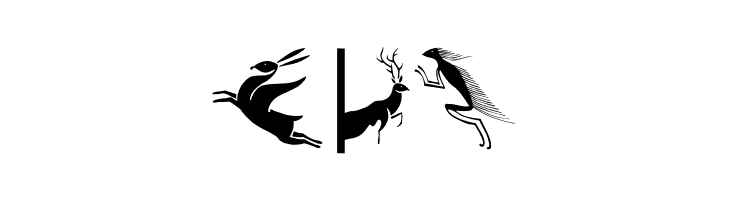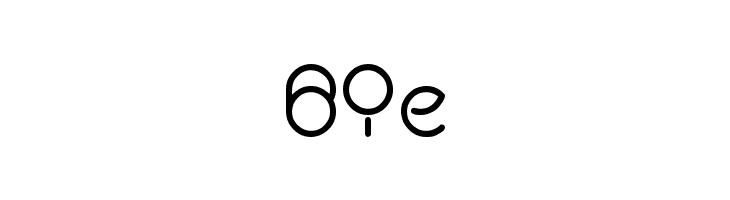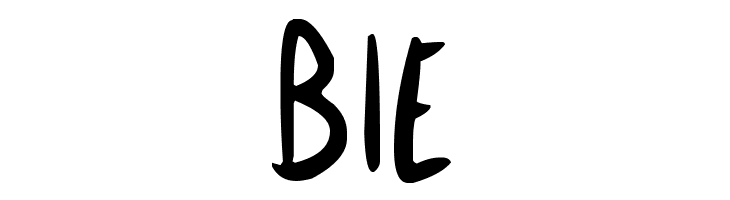
• XTRAPOWER
A bold, dynamic font with a slanted, layered effect and modern appeal.
• XTRAPOWER
A bold, dynamic font with a three-dimensional effect and layered strokes.
• Xuczlam
• Yanone Kaffeesatz
A modern, clean sans-serif font with a slightly condensed style.
• Yanone Kaffeesatz Bold
A bold, modern sans-serif font with a compact and efficient design.
• Yanone Kaffeesatz Extra Light
( Fonts by Yanone )
A sleek, extra-light sans-serif font with a modern and condensed design.
• Yanone Kaffeesatz Extra Light
A modern, extra-light sans-serif font with a narrow, elongated style.
• Yanone Kaffeesatz Light
A modern, light, and condensed sans-serif font with high legibility.
• Yanone Kaffeesatz Regular
A modern, clean sans-serif font with a slightly condensed style.
• Yanone Kaffeesatz Thin
A thin, modern sans-serif font with a sleek and elegant design.
• yellow
A bold, geometric font with angular, modern letterforms.
• YemeyiBold
A bold, modern font with a geometric and condensed design.
• YemeyiBoldItalic
A bold, italicized font with high contrast and dynamic slanted letterforms.
• YemeyiItalic
A sleek, italicized font with a modern and dynamic style.
• YemeyiRegular
A modern, sleek font with clean lines and a slightly condensed style.
• Yet Another Unbranded Banana
( Janet Cordahi - www.eccentricity.net/ )
A whimsical and decorative serif font with a vintage-modern blend.
• YMC8
• Yodeb
( Jorge Bedoy )
A modern geometric font with clean lines and angular cuts.
• Yokelvision
• Yumase
( Fonts by Skiiller Studio )
A bold, expressive handwritten font with tall, narrow letters and fluid strokes.